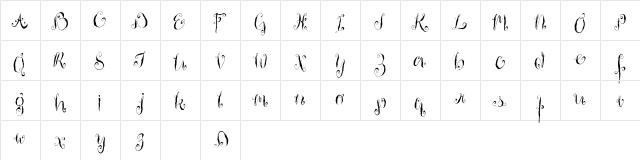
HousemaidAlternate Roman
Design Context for HousemaidAlternate Typeface
HousemaidAlternate is a composed and adaptable typeface that performs quietly and consistently across a wide range of design contexts.